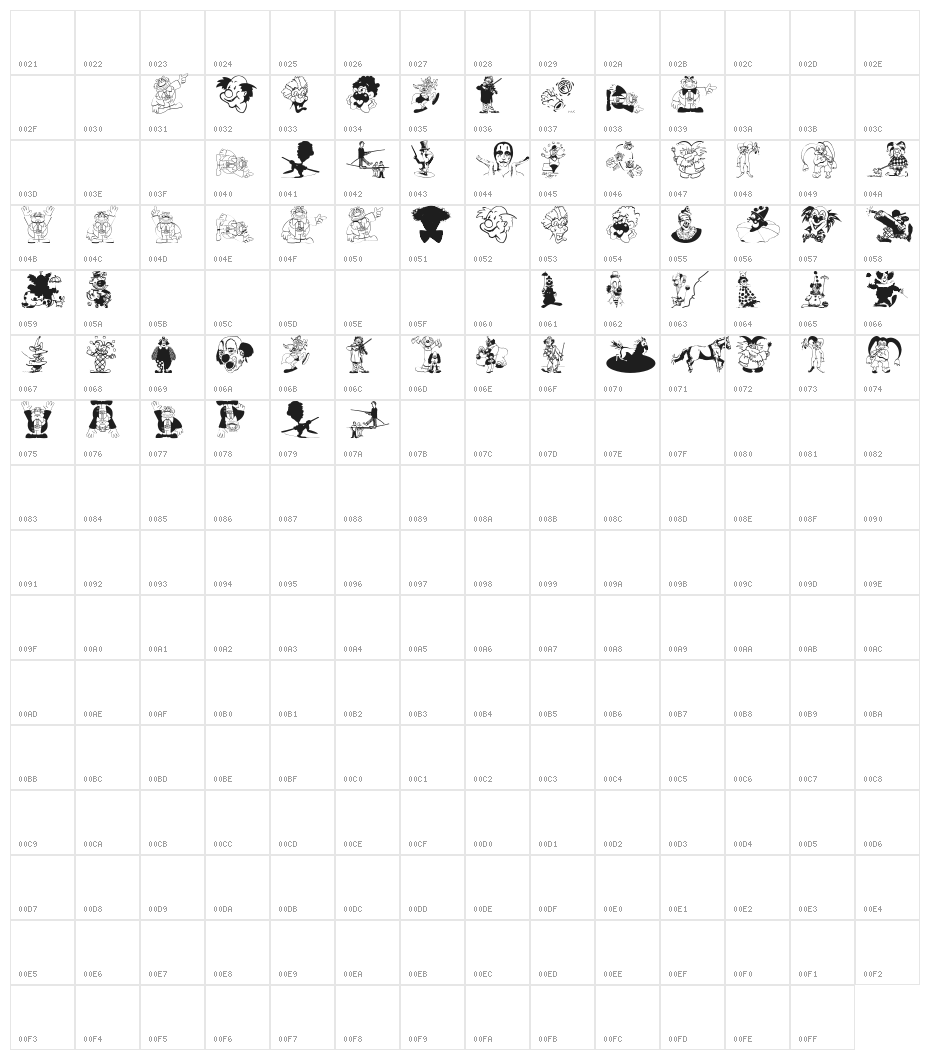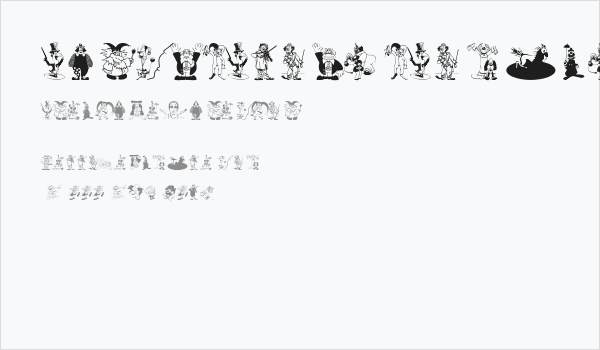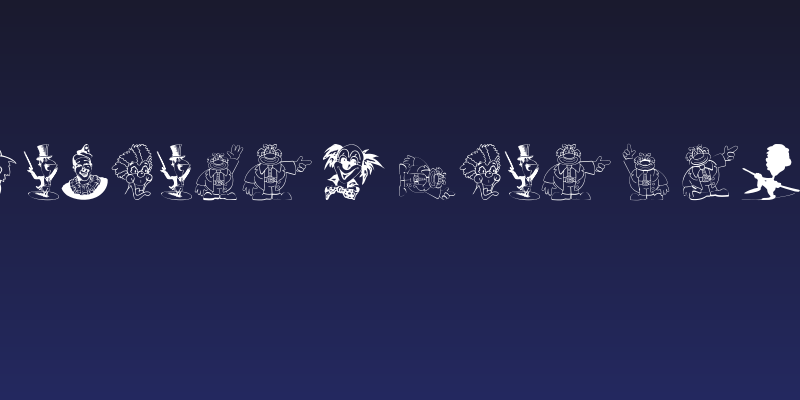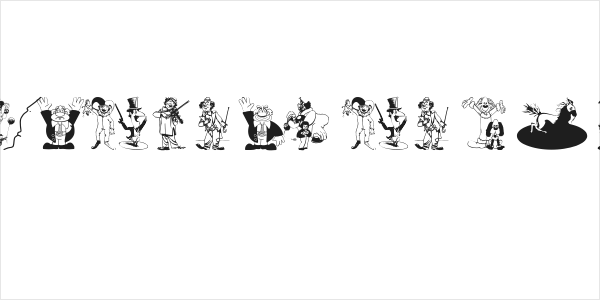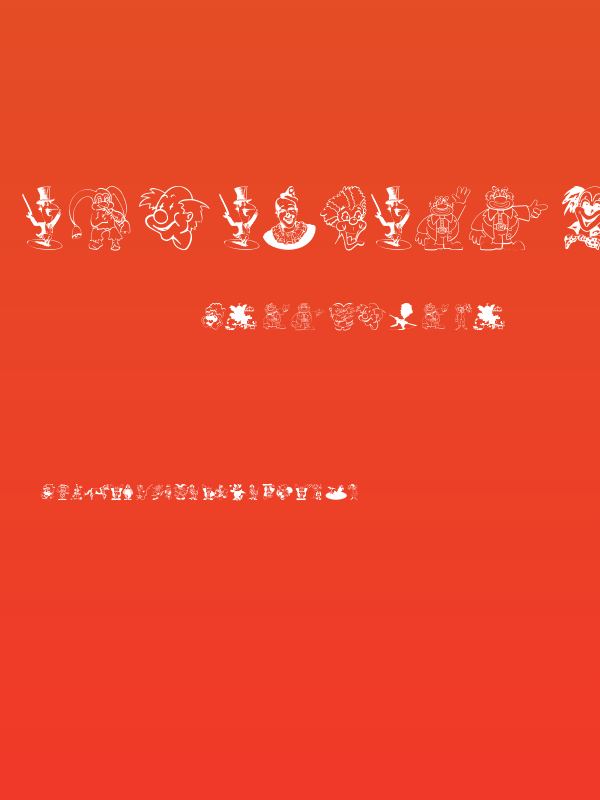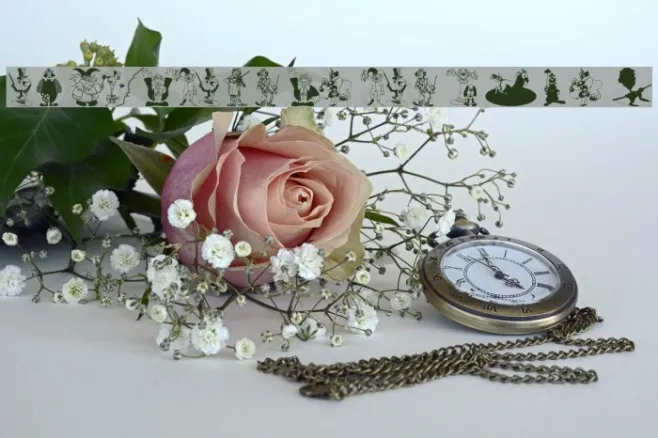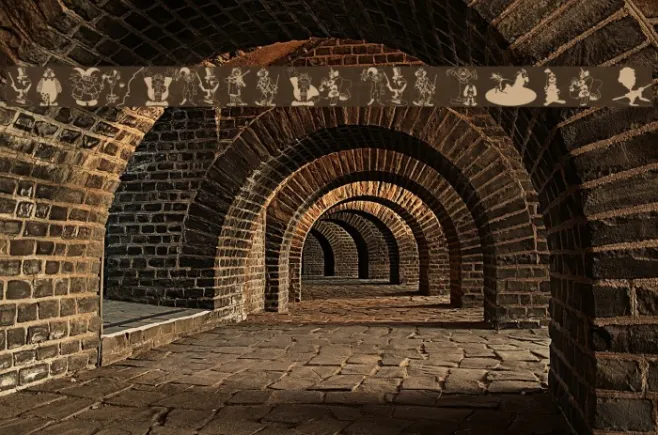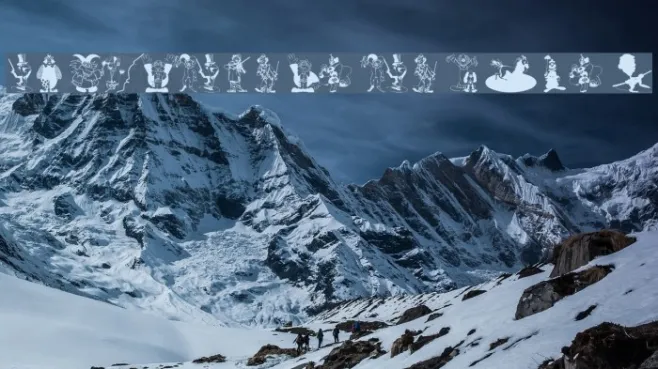
CircusClownsCompany Font
CircusClownsCompany Description
A decorative display font composed entirely of whimsical, cartoon-style circus and clown illustrations representing each character, with playful and exaggerated forms, high visual variety, and strong personality.
| Overall Style | Decorative, Whimsical, Playful |
| Use Case | Headlines, Posters, Themed Graphics |
| Proposed Projects | Children’s party invitations, circus-themed posters, playful branding, event flyers, novelty merchandise. |